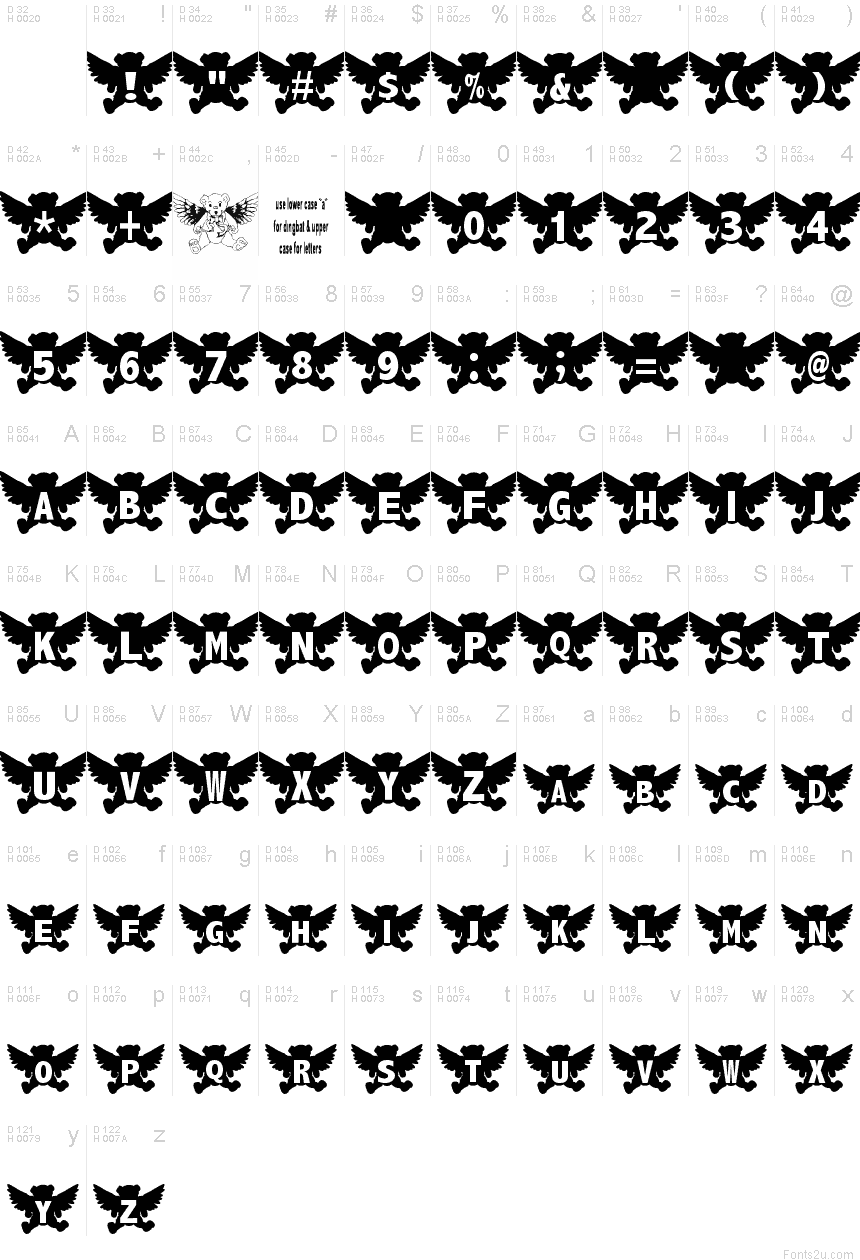
Angel Bear
Angel Bear font by Fish Dicks Original Fonts is a free decorative display typeface that turns every letter into a tiny, winged creature. Chunky black silhouettes, sharp ears, and flared wings fuse with the letterforms, so text reads like a row of mischievous mascots rather than ordinary characters. The compact spacing and solid fills give Angel Bear a dense, inkblot feel that pops hard against light backgrounds and holds its shape even at smaller headline sizes.
Using Angel Bear, you get instant atmosphere for work that needs a playful-but-dark twist: band logos, zines, horror-comedy posters, Halloween invites, alt kids’ merch, and game titles all benefit from its cartoon-goth energy. This free font works best when you give it room to breathe, then pair it with a plain, narrow sans serif for supporting text so the wild silhouettes stay in the spotlight.